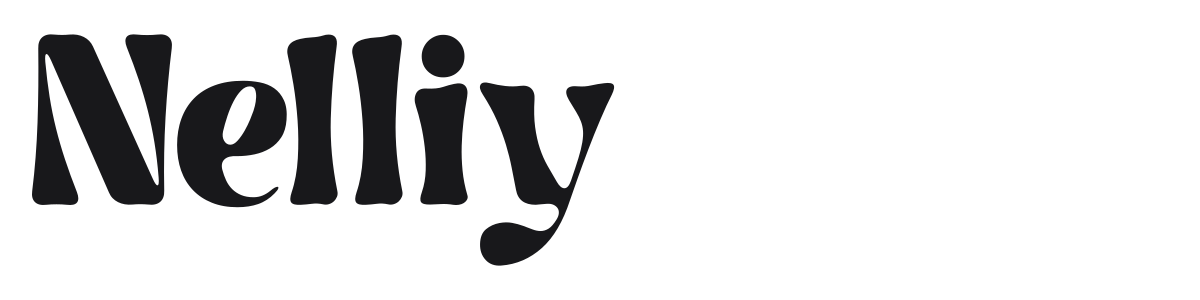
Nelliy
by Muksal Creative · Website
Nelliy is a bold fat-face serif with extreme stroke contrast and dramatic ink traps that nod to Didone and Victorian display traditions. Wide proportions and deeply cupped serifs give it a striking contemporary edge that reads well in fashion and editorial contexts. It commands attention at large sizes.